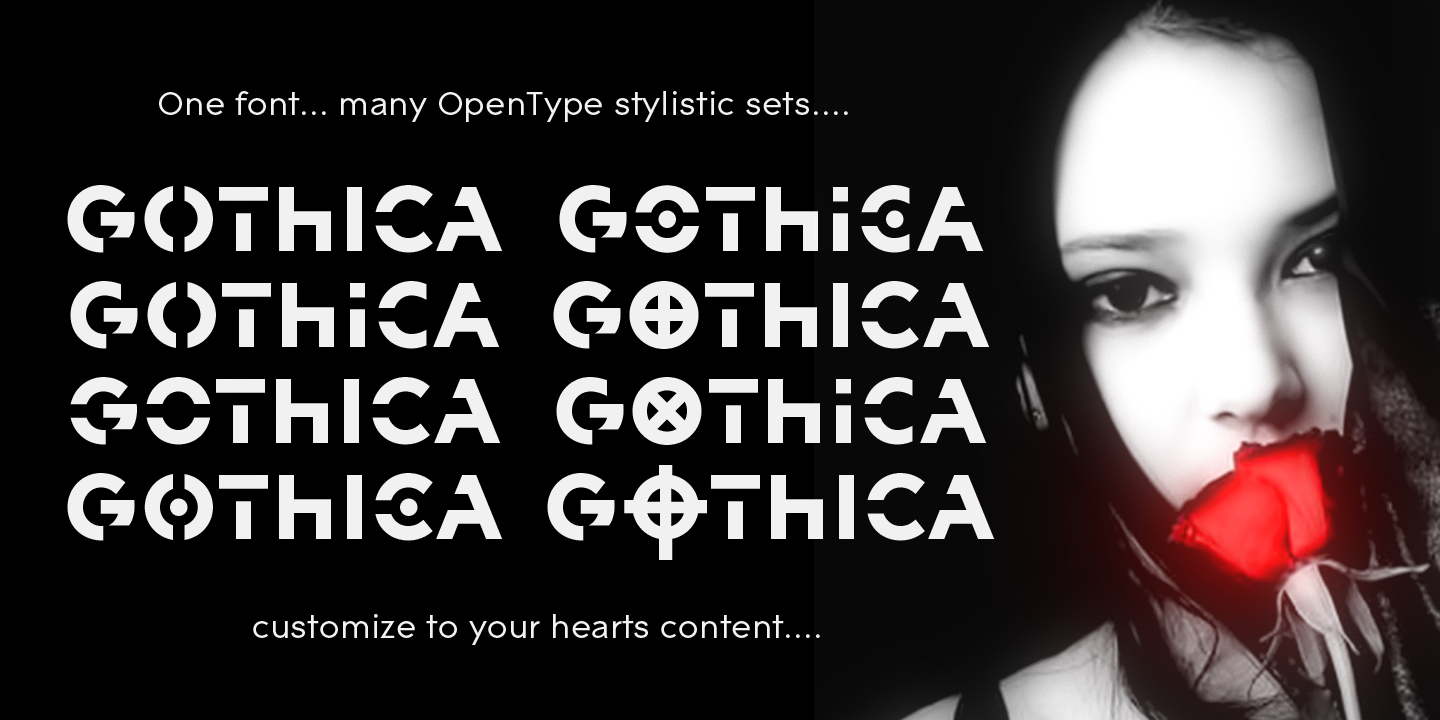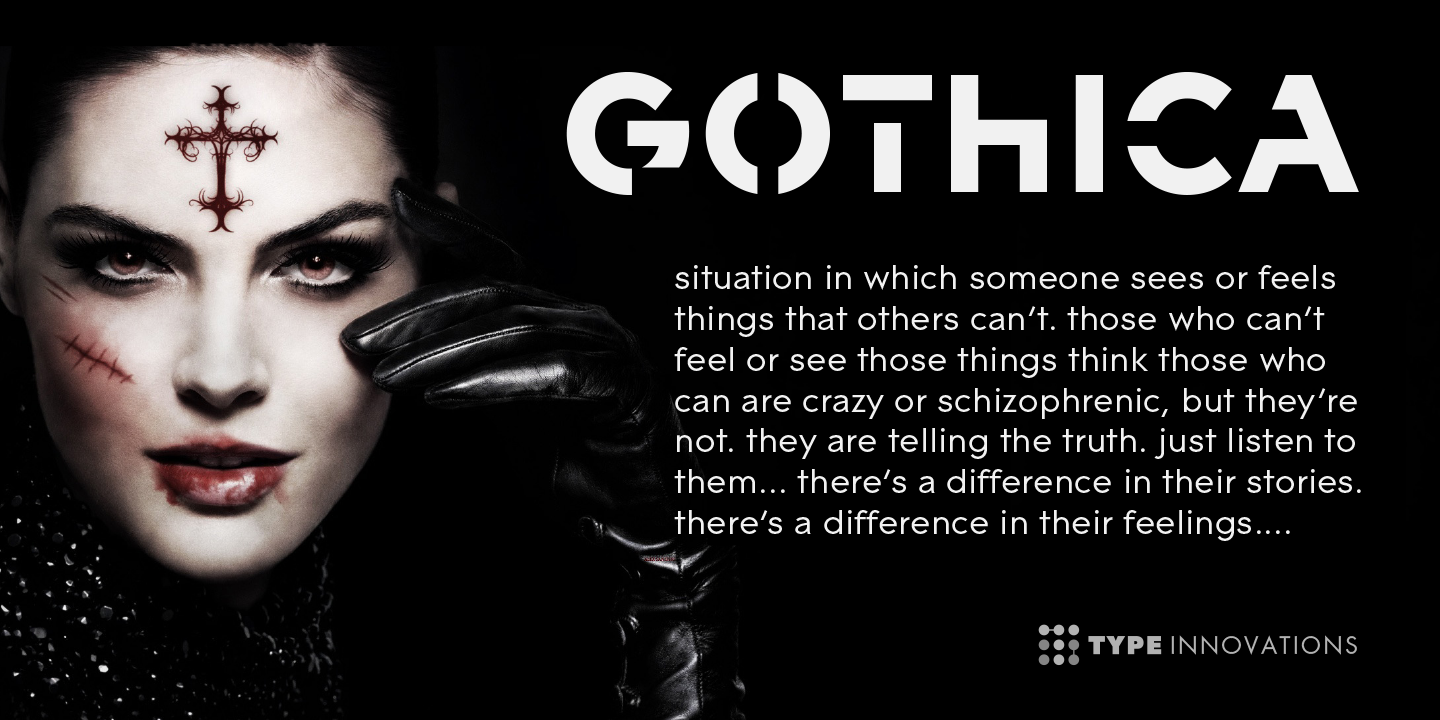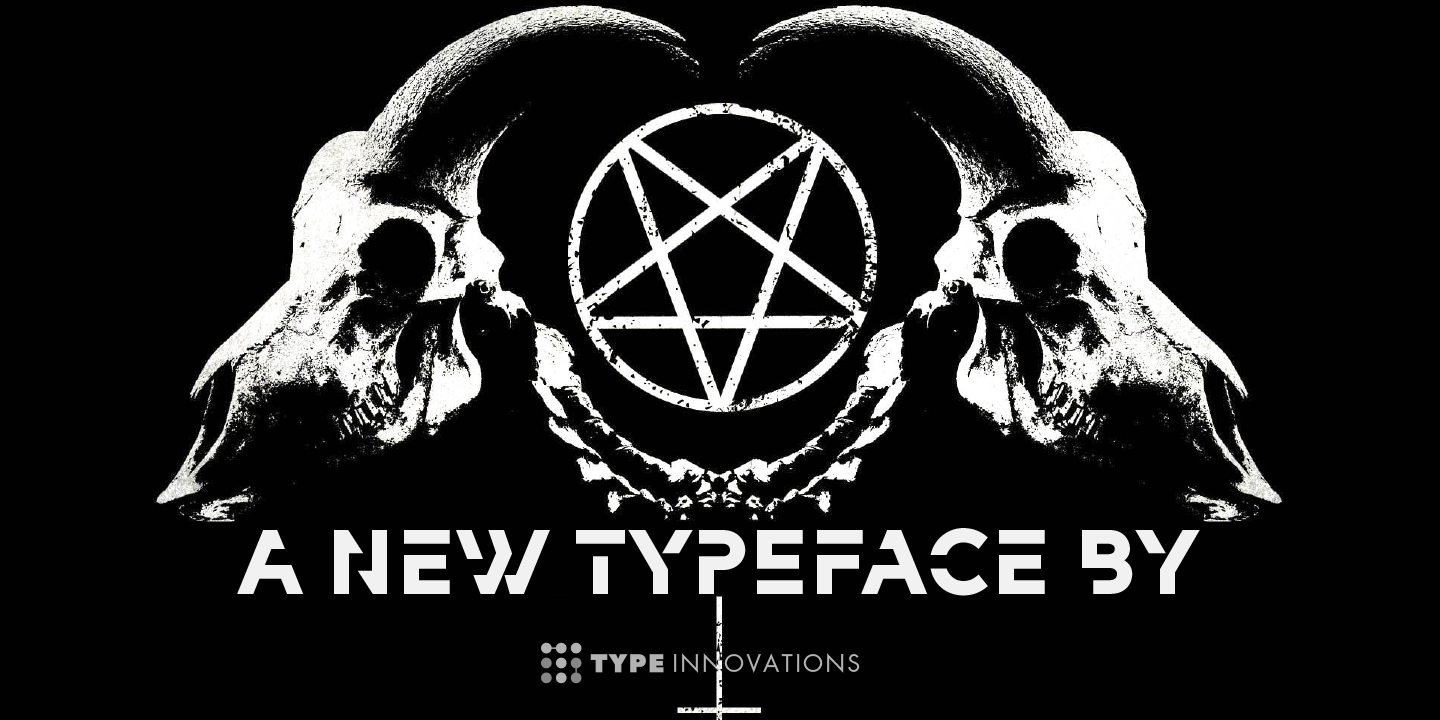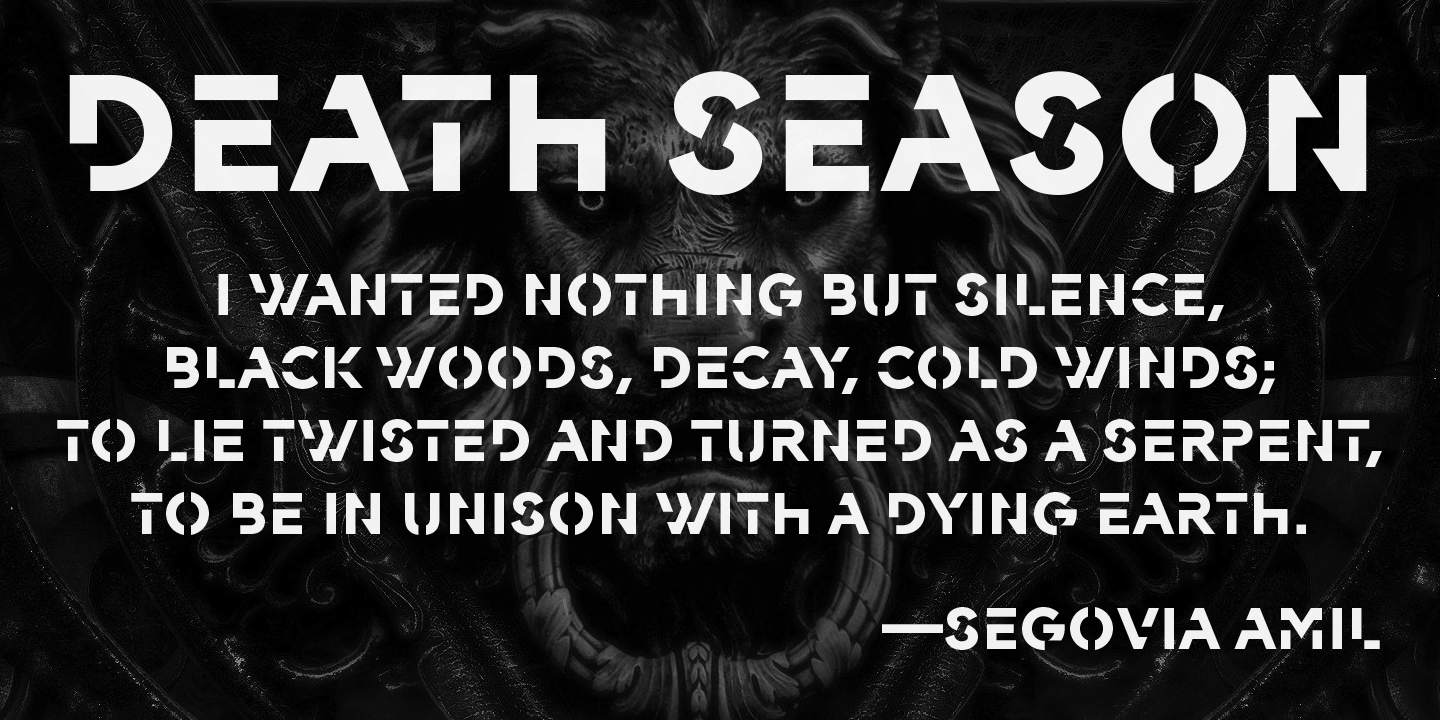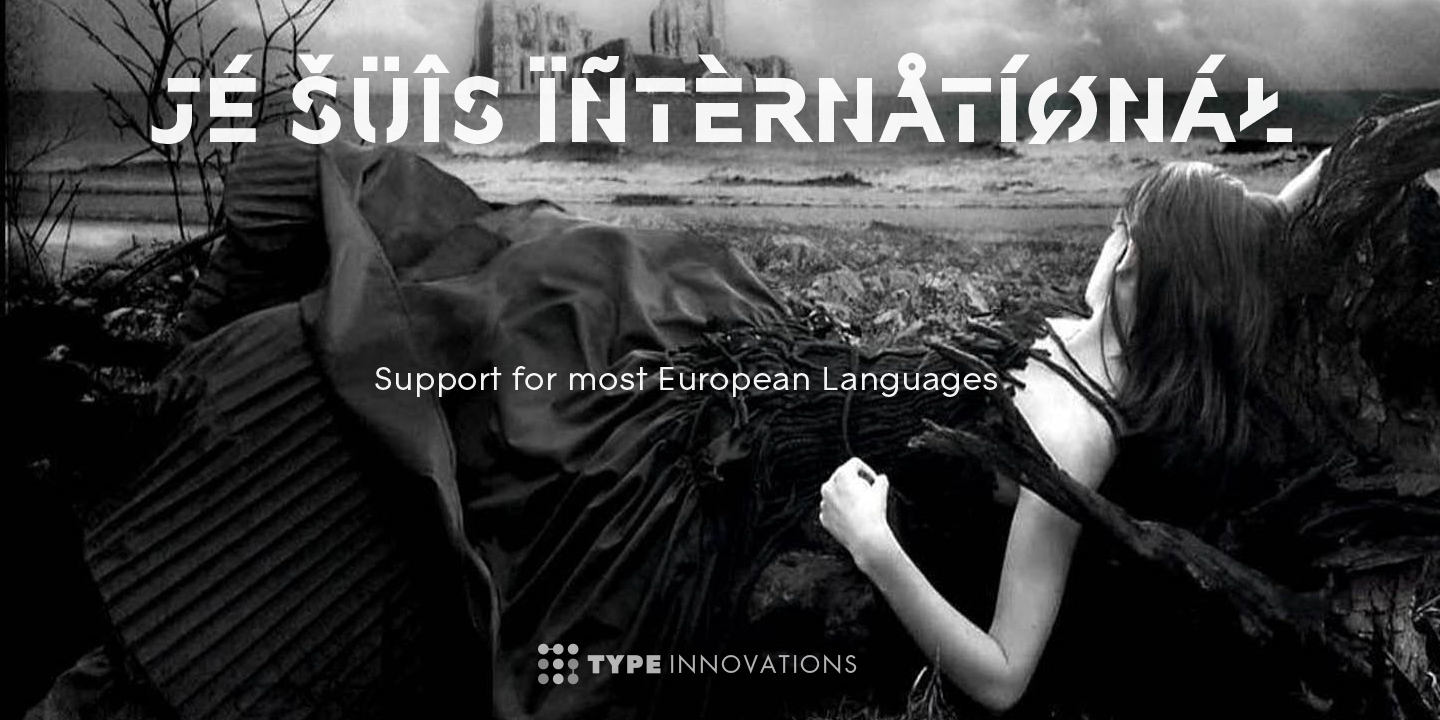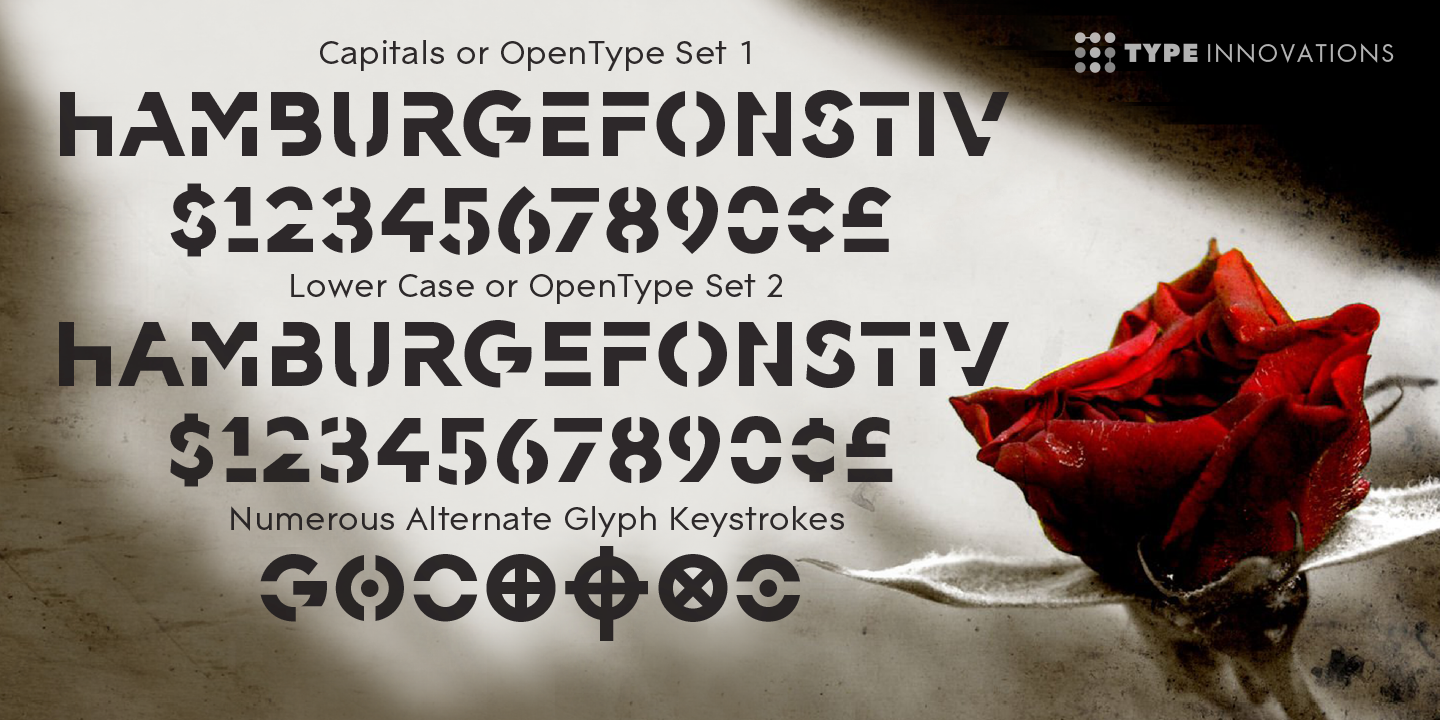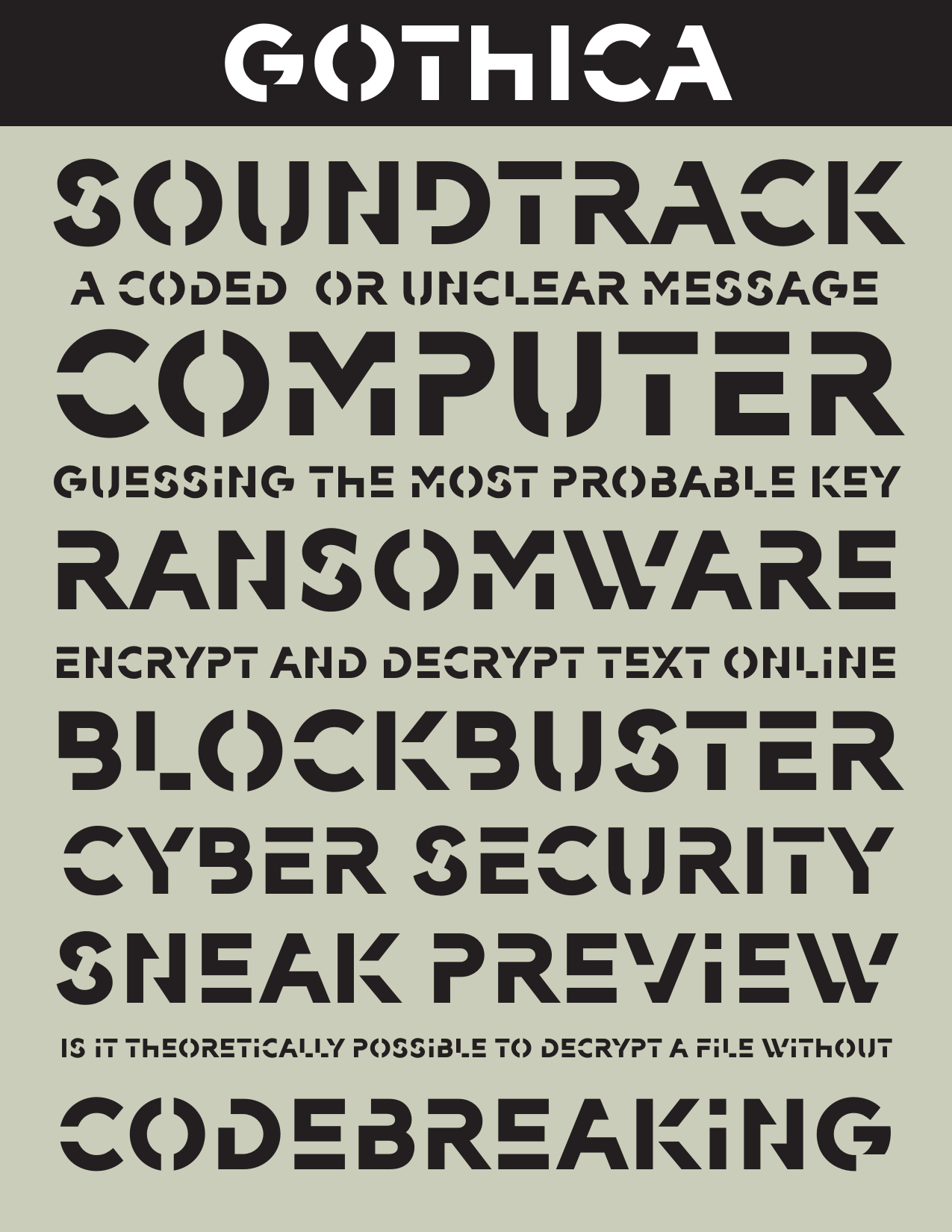
Gothica
Say hello to Gothica. It’s a display geometric sans designed with Stencil-like elements and letter cutouts specifically created for visual impact—ideal for logo, branding and advertising purposes. The font includes capitals and capital alternatives in the lower case keystroke positions—it’s like having 2 display fonts in one. In addition, Gothica includes various opentype features that allow graphic designers to tailor the type for custom needs.
The development of Gothica started in 1997, inspired by Alex Kaczun’s best selling grotesque font family called Contax Pro. An experimental design, Gothica is specifically introduced as a bold weight, but Alex plans to expand the design to include many weights, styles and alternative design treatments. Stay tuned!